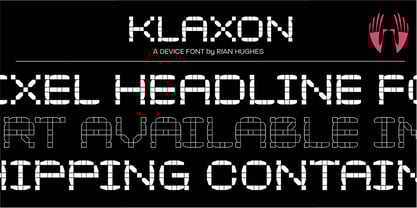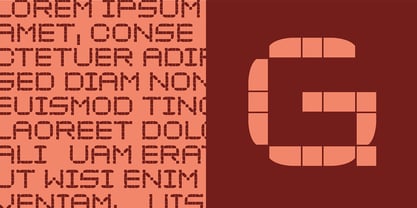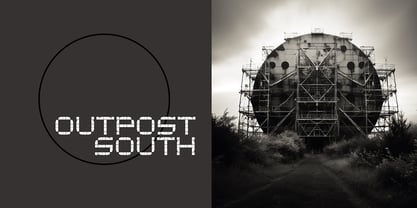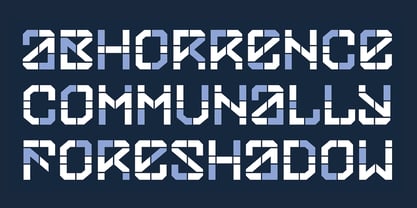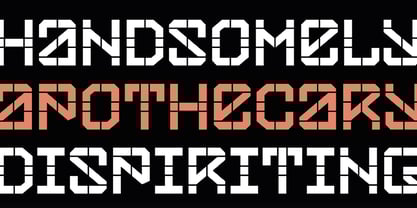
Klaxon
by Device
The Klaxon Font Family was designed by Rian Hughes and published by Device. Klaxon contains 7 styles and family package options.
Klaxon is a strict pixel-grid design that combines curved and square character shapes for clarity. Version One has curved elements; Two is built entirely of straight lines. The outline variant is weighted to the width of the gap between elements.